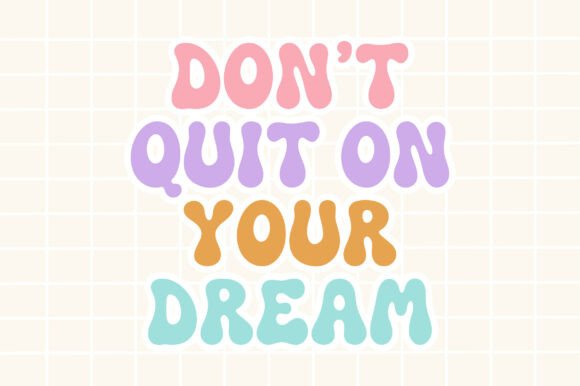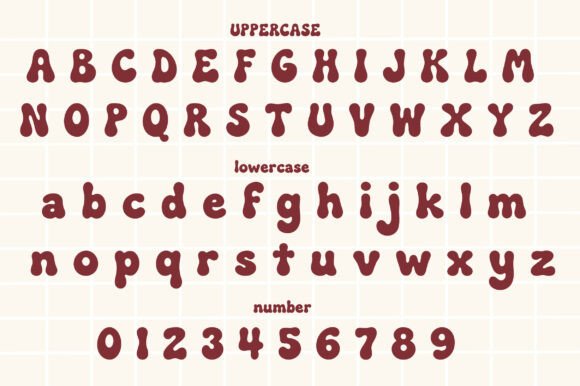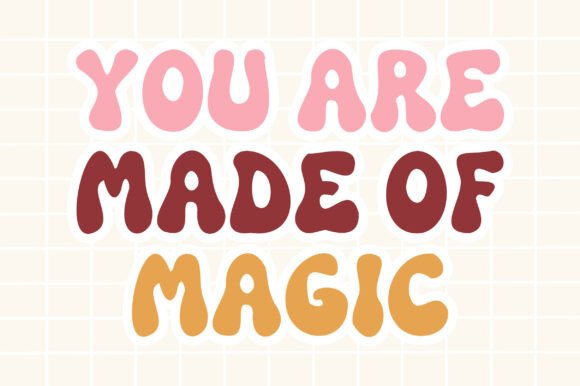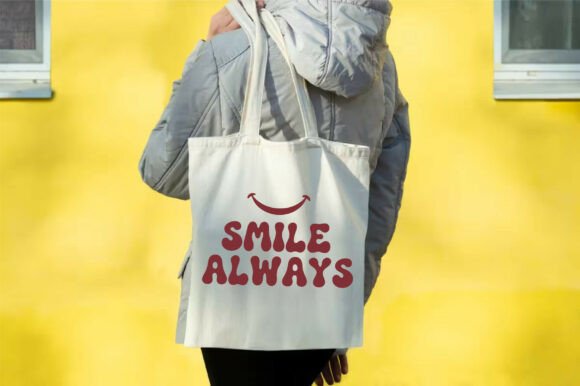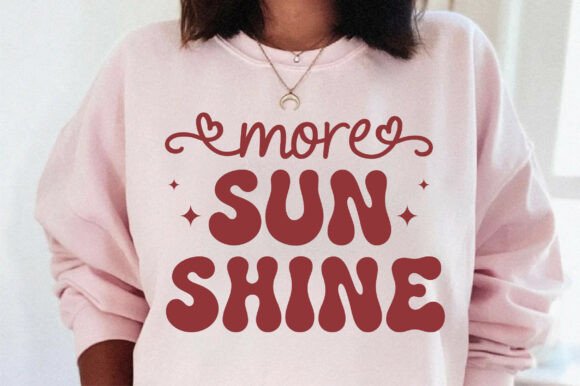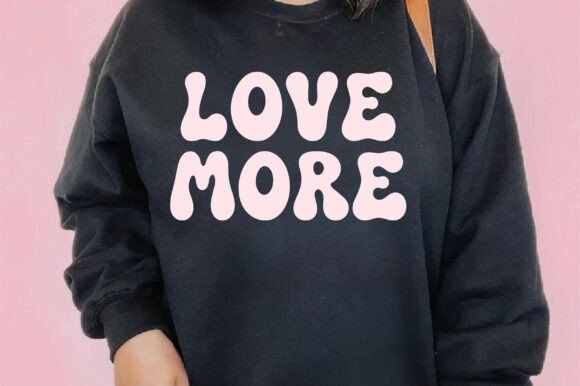
Unlock the Whimsy of the Bubble Dream Font
Have you ever stared at a blank canvas, brainstorming ideas for a new project, only to have a burst of creativity strike when you least expect it? For many designers, this moment of inspiration is what drives their passion for creating unique and captivating visual experiences. It’s in these moments that the perfect font can make all the difference.
Enter the enchanting Bubble Dream Font, a playful retro groovy typeface that adds a touch of whimsy to any design. With its soft, bubbly curves and dreamy vintage vibe, this font is perfect for a variety of projects, from t-shirts and branding to social media graphics and posters. As a designer, you’ll appreciate the versatility and charm of the Bubble Dream Font, making it a valuable addition to your toolkit.
Bubble Dream Font Key Features
- Font Family: Bubble Dream Font is a unique, handwritten font family designed to add a touch of whimsy and playfulness to any design.
- Font Size: Offers a range of font sizes, from 12px to 72px, allowing for flexibility in design applications.
- Resolution: Optimized for high-resolution displays, ensuring crisp and clear typography at 300 DPI and above.
- Unique Characteristics: Features an organic, hand-drawn feel with varying line widths, flourishes, and subtle imperfections, making it perfect for creative and artistic designs.
- Language Support: Supports a wide range of languages, including Latin, Cyrillic, and Greek scripts, making it a versatile font for global designs.
Bubble Dream Font Review
Overall, I’d say Bubble Dream Font is a visually appealing font, especially for its playful and whimsical vibe. ✨ I love how it adds a touch of fun and fantasy to any text. The font’s bubble-like features and rounded edges make it perfect for designs that require a sense of playfulness and approachability.
- Unique and quirky design: Bubble Dream Font has a distinctive look that’s hard to find in other fonts.
- Fun and playful vibe: The font’s bubbly features make it perfect for designs that require a lighthearted and approachable tone.
- Wide range of uses: From kids’ books to party invitations, Bubble Dream Font can be used in a variety of contexts.
However, I do have some concerns about the font’s limitations. ⚠️ For one, the font may not be suitable for formal or professional designs, as it can come across as too playful or childish. Additionally, the font’s bubble-like features may not be legible at very small sizes or in low-resolution contexts.
Overall, I think Bubble Dream Font is a great addition to any designer’s toolkit, especially for projects that require a playful and whimsical touch. While it may have some limitations, its unique design and wide range of uses make it a valuable resource for any designer looking to add some personality to their designs.
Getting the Most Out of Bubble Dream Font
Here are some tips to get the most out of Bubble Dream Font:
- Use it in combination with bold, colorful backgrounds to create a playful atmosphere.
- Use it to create a whimsical, dreamy feel in your designs.
Bubble Dream Font is perfect for:
Oswald is a sans-serif font that is suitable for headings and titles. It has a strong and modern look, making it perfect for creating a bold and eye-catching design. Oswald is a great alternative to Bubble Dream Font for designers who want a more minimalist and clean look.
Comparison: Oswald is more minimalist and clean compared to Bubble Dream Font, which has a more playful and whimsical feel. Oswald is ideal for headings and titles, while Bubble Dream Font is better suited for body text.
Lato is a sans-serif font that is highly legible and versatile. It is suitable for both headings and body text, making it a great choice for designers who want a font that can be used throughout their design. Lato is a great alternative to Bubble Dream Font for designers who want a more modern and elegant look.
The recommended font size for using Bubble Dream Font is between 12pt and 24pt. However, you can use it at any font size, depending on your design requirements and personal preference. Keep in mind that using the font at very small sizes may affect its readability.